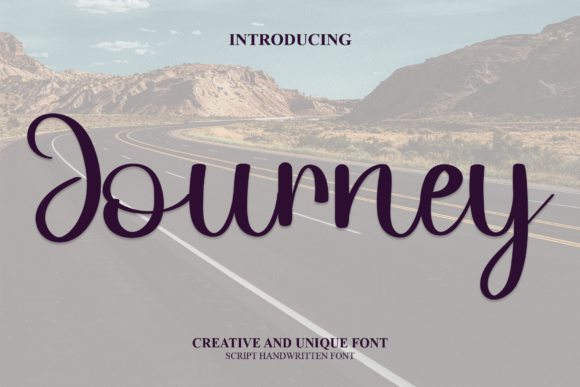
Immerse yourself in the world of Journey Font, a captivating handwritten font that embodies elegance and playfulness. Designed with meticulous attention to detail, Journey Font possesses a harmonious character, effortlessly complementing a wide array of creative endeavors. Whether you're crafting eye-catching headlines, heartfelt letters, or enchanting invitations, Journey Font will guide you to create designs that leave a lasting impression.
Journey Font's graceful curves and fluid strokes add an enchanting touch to any project. Its delicate charm evokes a sense of nostalgia, while its modern aesthetic ensures it remains timeless. The font's versatility extends from formal settings to personal expressions, making it an ideal choice for both professional and personal use.
Step into the world of Journey Font and embark on a creative voyage where imagination meets artistry. Let its enchanting allure captivate your audience, leaving them spellbound by the beauty of your creations.
- Extensive character set, including uppercase, lowercase, numerals, and a comprehensive selection of punctuation marks, providing you with the flexibility to express yourself fully.
- Multilingual support, allowing you to communicate your message to a global audience with ease.